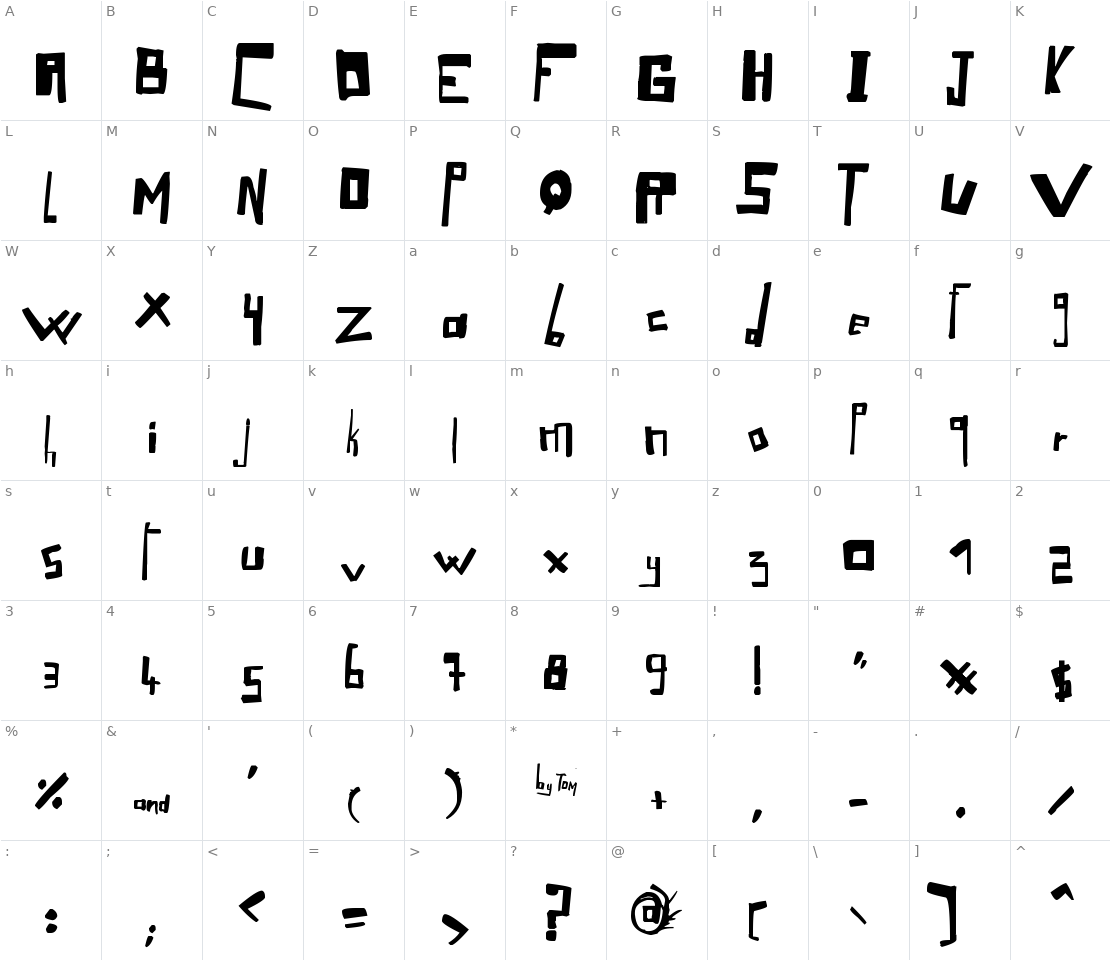
LoOse Gangster
by Tn2
LoOse Gangster is a bold, deliberately chaotic display face from Tn2 where each letter sits at its own angle and scale, mixing cases and proportions in a way that feels like a ransom note crossed with street art. The irregular, grunge-textured letterforms give it a raw, urban energy that works for headlines, posters, and experimental layouts where visual disorder is the whole point.